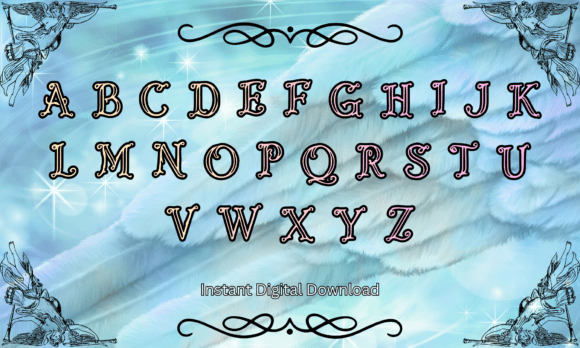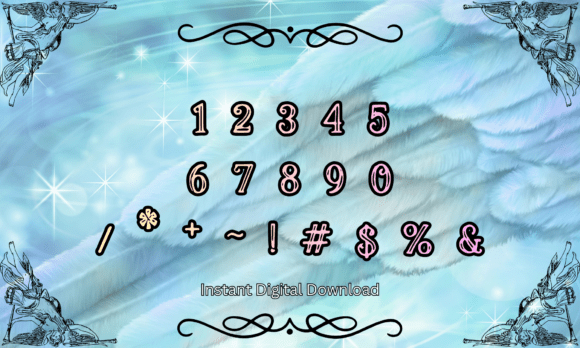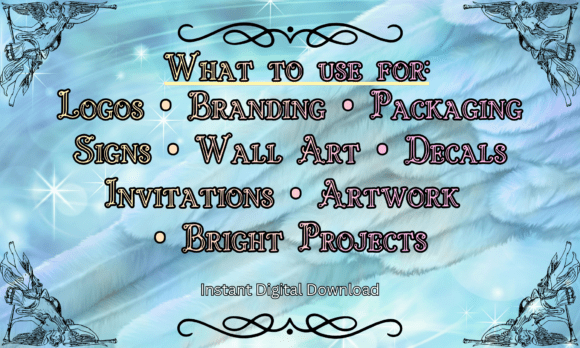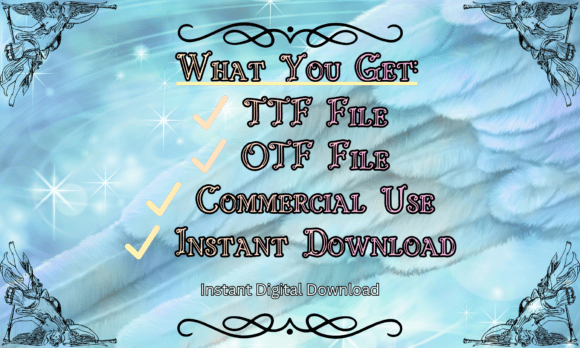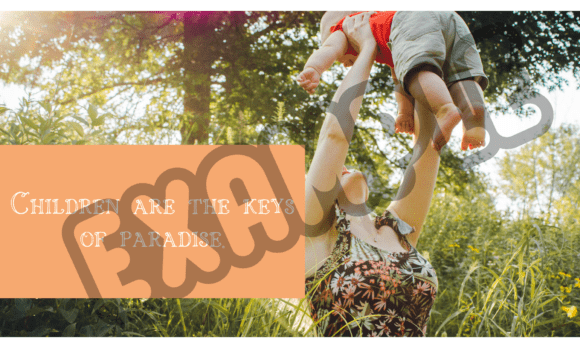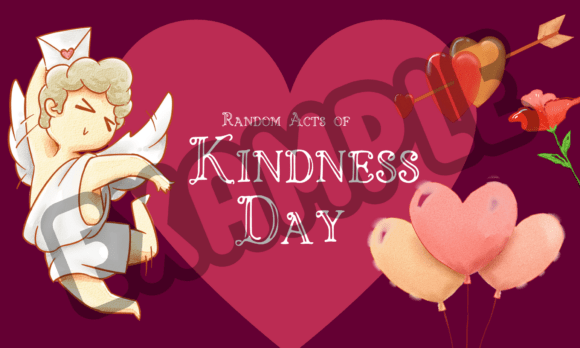
Introducing Angelic Filigree Font: Elevate Your Designs with Heavenly Elegance
Are you looking for a font that adds a touch of soft, heavenly elegance to your designs? Look no further than Angelic Filigree, a beautifully detailed display font inspired by delicate scrollwork and romantic calligraphy. This stunning font is perfect for designers and crafters who want to create wedding designs, luxury branding, and feminine aesthetics that exude elegance and sophistication.
A Font Fit for a Fairytale
Angelic Filigree is designed to feel light, dreamy, and celestial, like it belongs in a fairytale or love story. Its ornamental curves and graceful style make it perfect for a variety of design projects, from wedding invitations and logos to packaging and wall art. With its soft, romantic aesthetic, this font is sure to capture the hearts of your audience and leave a lasting impression.
Angelic Filigree is perfect for a wide range of design projects, including:
- Wedding invitations
- Logos & branding
- Packaging
- Stickers & decals
- Wall art
- Greeting cards
- Feminine business designs
- Romantic & soft aesthetic projects
Whether you’re a designer, crafter, or DIY enthusiast, Angelic Filigree is sure to become a go-to font in your collection.
Font Style
Angelic Filigree is an elegant calligraphy-inspired display font with decorative filigree details. Its soft, romantic aesthetic and feminine style make it perfect for designs that require a touch of elegance and sophistication.
With its beautiful, intricate details and heavenly feel, Angelic Filigree is sure to add a touch of magic to your designs.
Why Choose Angelic Filigree?
Here are just a few reasons why Angelic Filigree is a great choice for your design projects:
- Elegant and sophisticated: Angelic Filigree adds a touch of soft, heavenly elegance to your designs, making it perfect for wedding designs, luxury branding, and feminine aesthetics.
- Unique and eye-catching: Angelic Filigree’s decorative filigree details and soft, romantic aesthetic make it a unique and eye-catching addition to your designs.
Overall, Angelic Filigree is a beautiful and versatile font that’s perfect for designers and crafters who want to add a touch of elegance and sophistication to their designs.